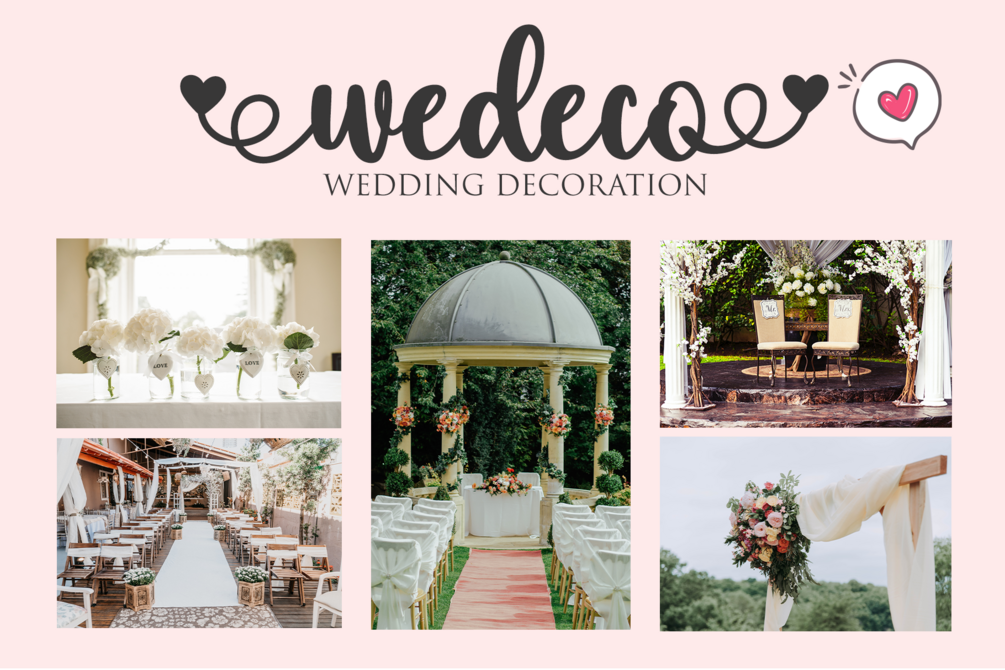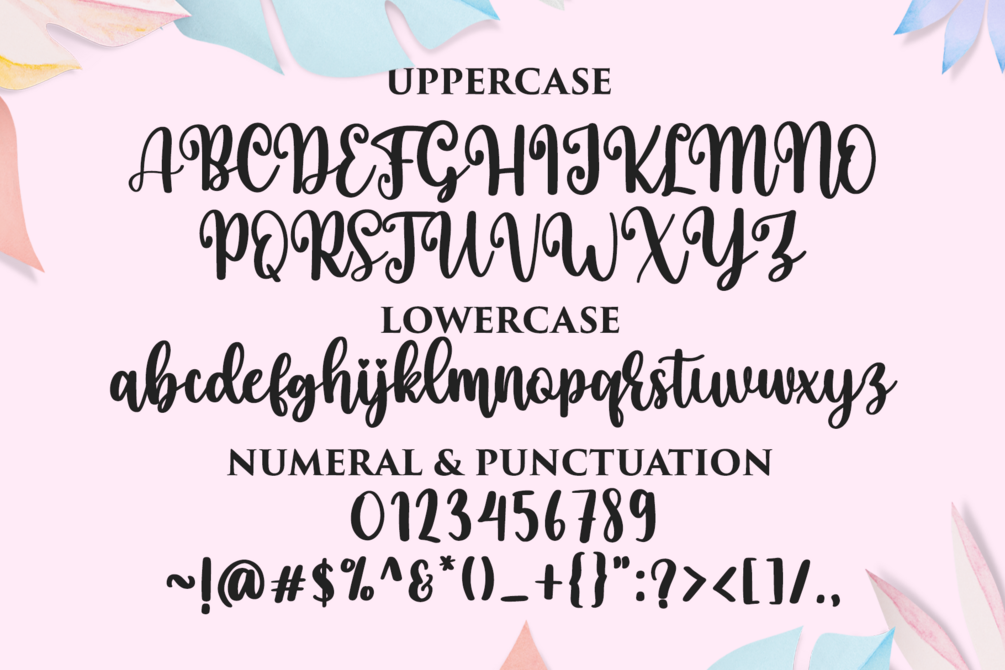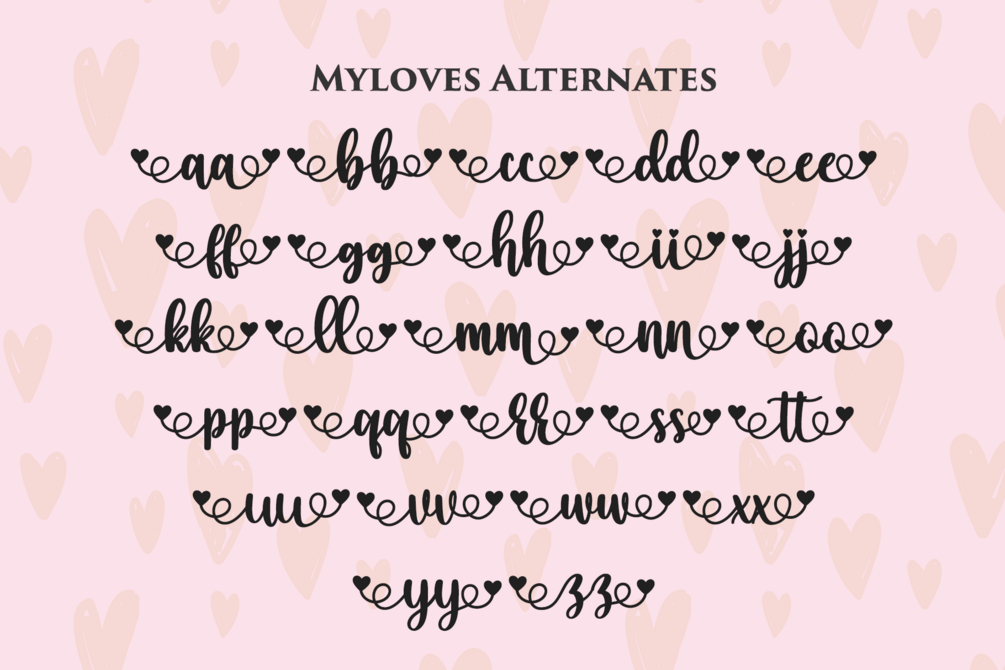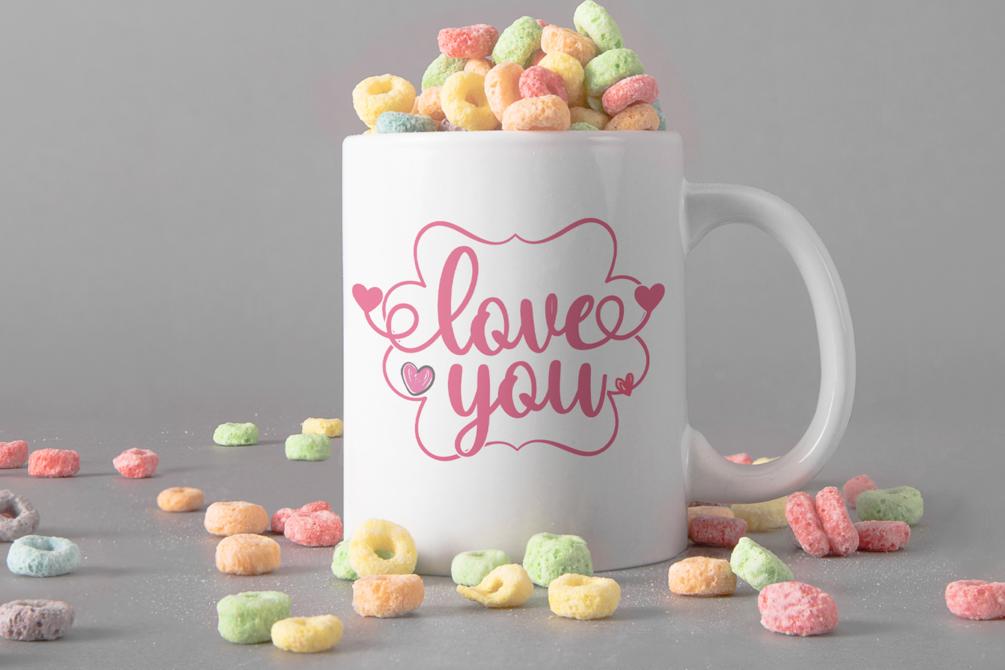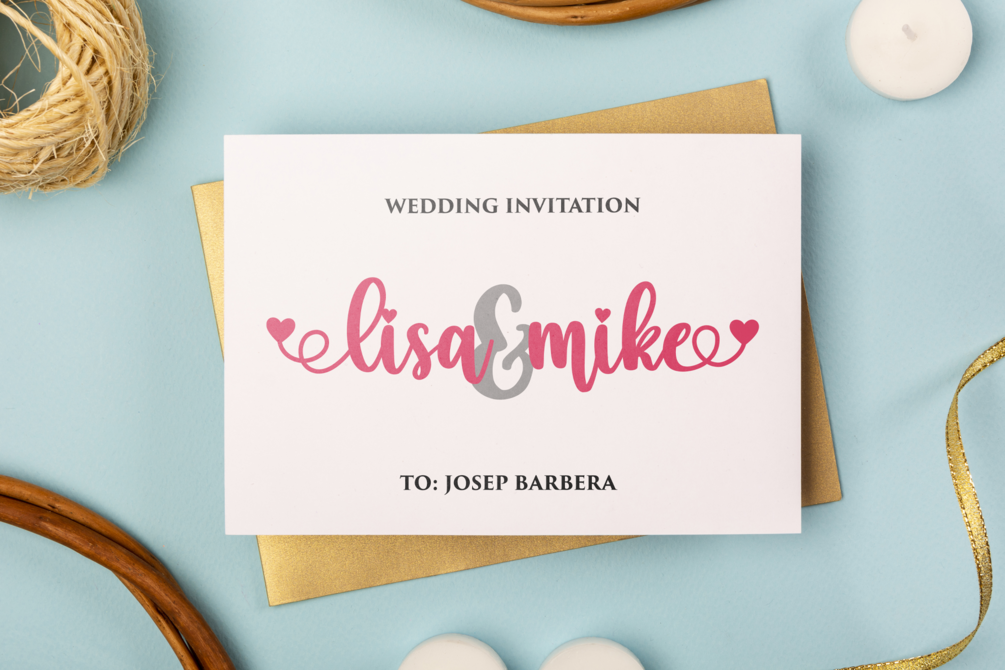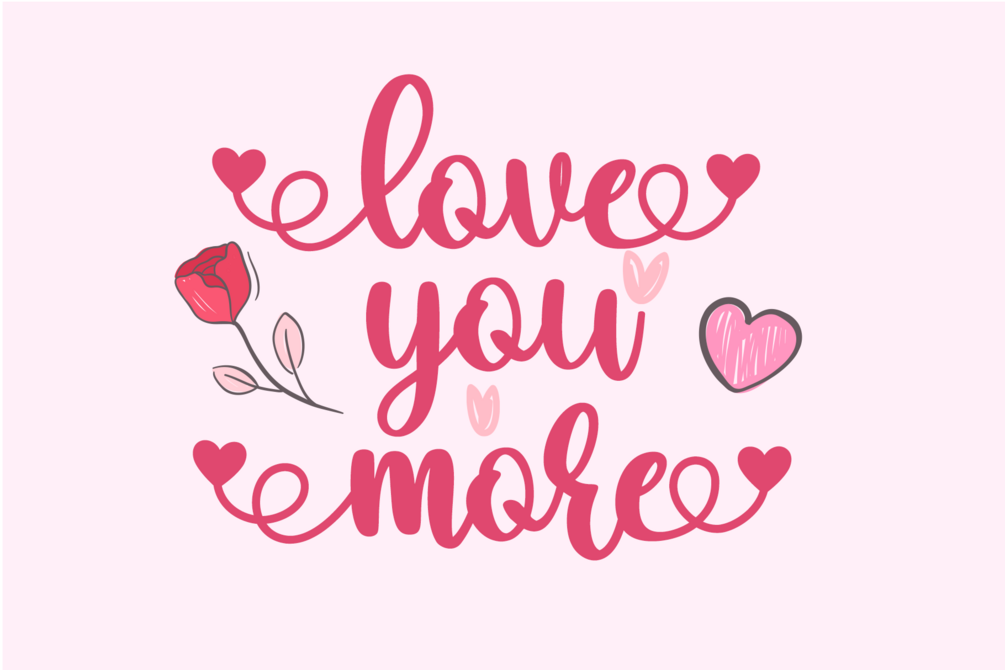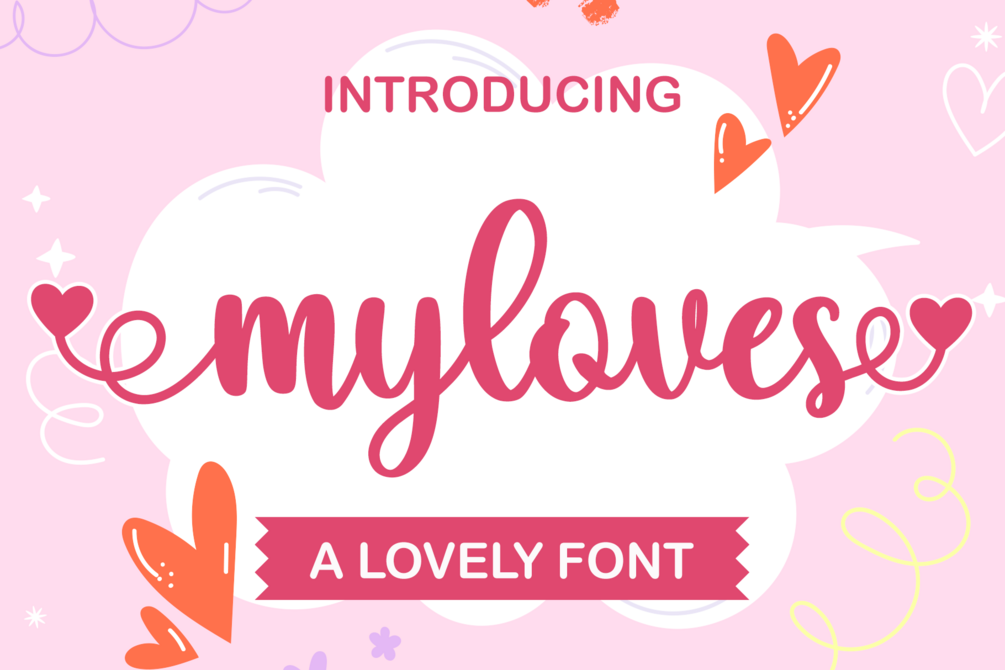
Myloves
๐Ÿ’Œ Myloves โ€“ The Sweet & Romantic Handwritten Font
Fall in love with Myloves, a lovely handwritten script that captures the beauty of heartfelt expression. โœจ
With its graceful curves and smooth flow, Myloves brings a touch of romance and charm to every design โ€” perfect for adding that personal, handwritten feel.
Whether youโ€™re creating wedding invitations, love letters, social media posts, branding, or DIY craft projects, Myloves will turn every idea into a true piece of art. ๐Ÿ’•
• Elegant Ligatures
• Beautiful Alternate Characters
• Full Multilingual Support